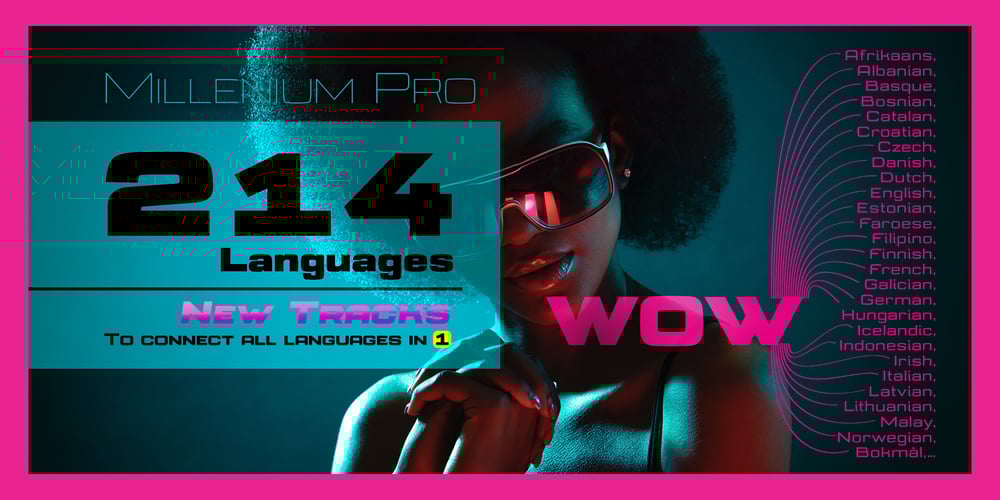
Millenium Pro Font Family was designed by patrice provost and published by TypoStudio Pro. Millenium Pro contains 13 styles and family package options. In designing the Millenium® typeface, Patrice Provost was inspired by great typographers in the great French typographic tradition to create a unique and modern variable font. His goal was to reinterpret the mid-20th century sans serif style in a variable typeface that will conform to the need of the 21st century. He succeeded with mastery in drawing large characters. In doing so, patrice provost added an exceptional dimension to the design of this typeface, a graphic personality that evolves over the styles. The attention to detail brought to each letter, each accent, each diacritic, make this font a solid tool for all Western graphic designers and layout artists. With more than 1000 glyphs per style, Millenium® can be used in more than 210 countries. With its 13 styles drawn in Classical Roman style, in Italics and in condensed Millenium® provides designers from all walks of life with a fantastic tool to bring novelty and class to your creations. Ideal for signage, Millenium, thanks to its “wide case”, is also widely used for posters. It is also a gold mine for creating logos for dynamic tech start-ups. The Millenium family is made up of designs with progressive weight changes. it is very extensive. It ranges from “Super Thin” to “Extra Black”. Unique in the world, its thinness makes it possible to design a very light style even to print on posters and other large formats. Designed from the outset as a variable typeface, Millenium offers a range of 900 possible variations and an infinity of creations…